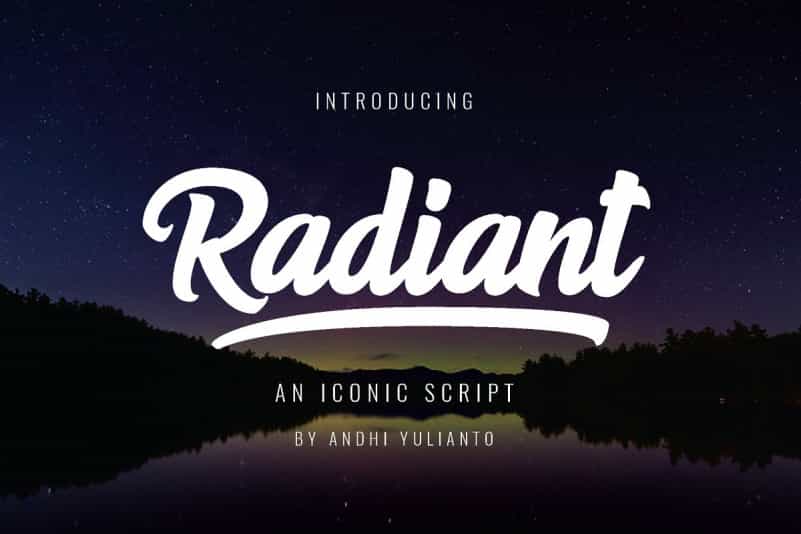
Meet the Radiant Script. This is a brave script font. You can use to create a logo for branding, best for apparel design, and quotes. It is created and published by great19. Radiant Font is such a typeface that is bold, beautiful, and can be used to create an iconic word mark, logotype, typography.